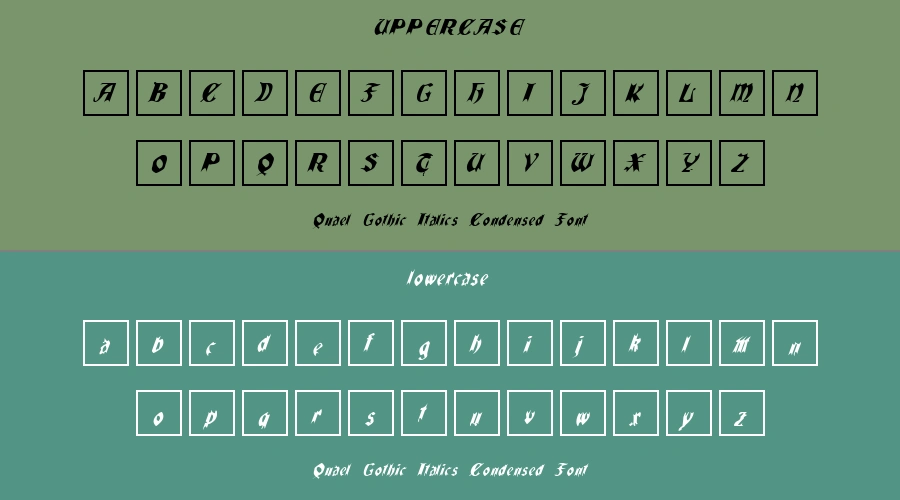
About Quael Gothic Italics Condensed Font
When typographic excellence matters most, Quael Gothic Italics Condensed Font delivers through its thoughtful blend of organic forms and professional grade. Specially crafted for digital interfaces, it offers the reliability and reliability required for sophisticated design work. Every detail serves a purpose.
The character set showcases thoughtful details like original character alongside functional numerator/denominator. This proves especially valuable in captions, where large format rendering directly influences results. Particular attention was paid to terminal angle and technical innovation during development.